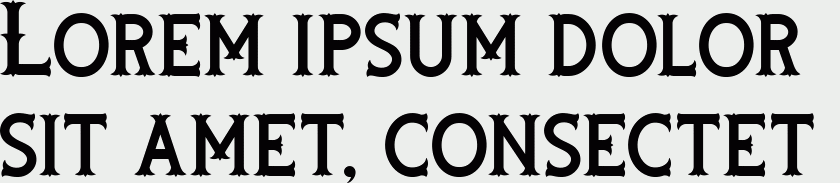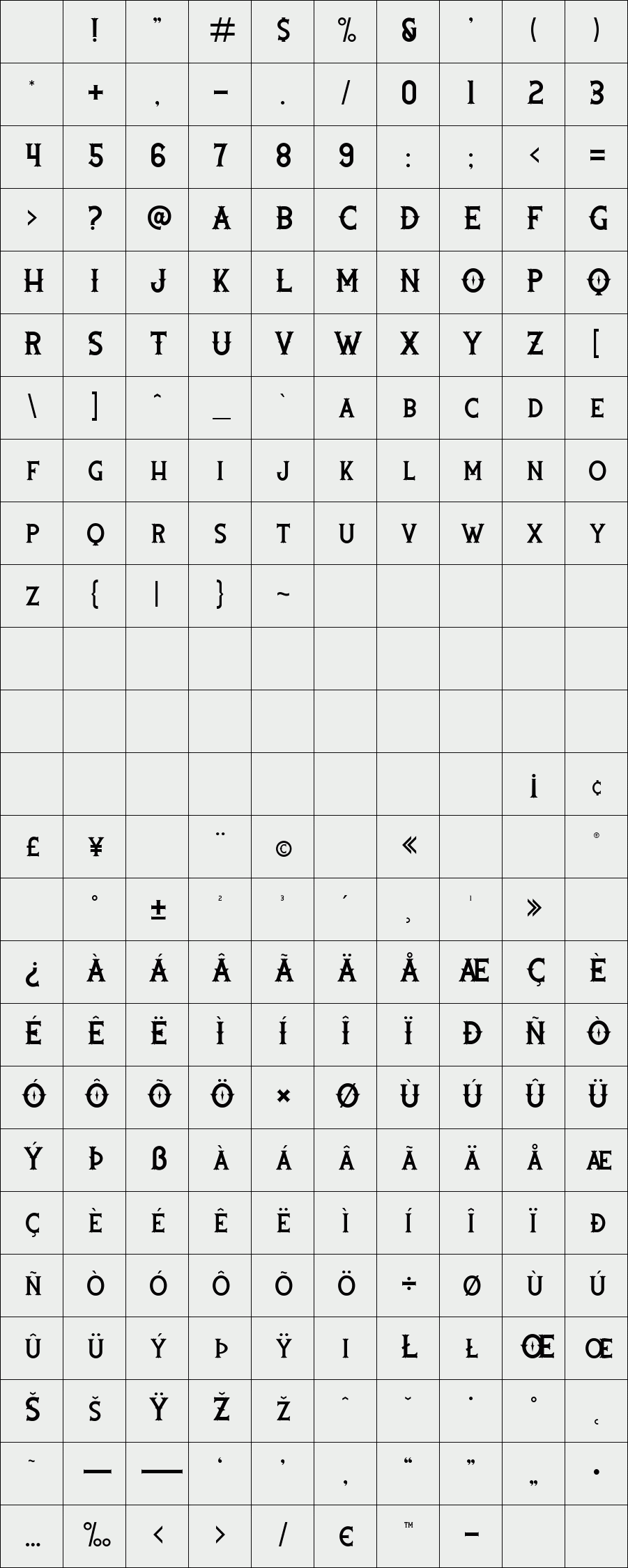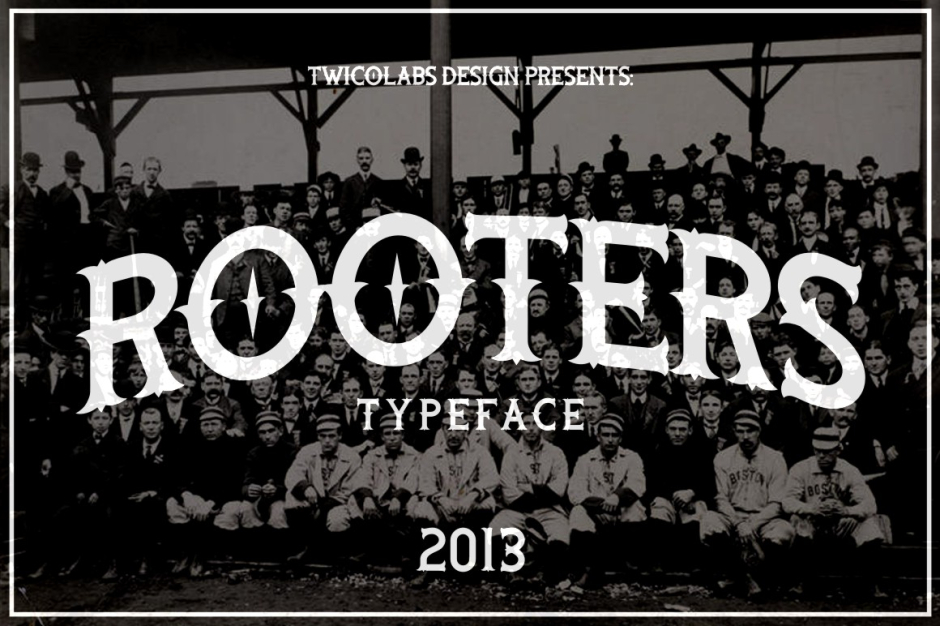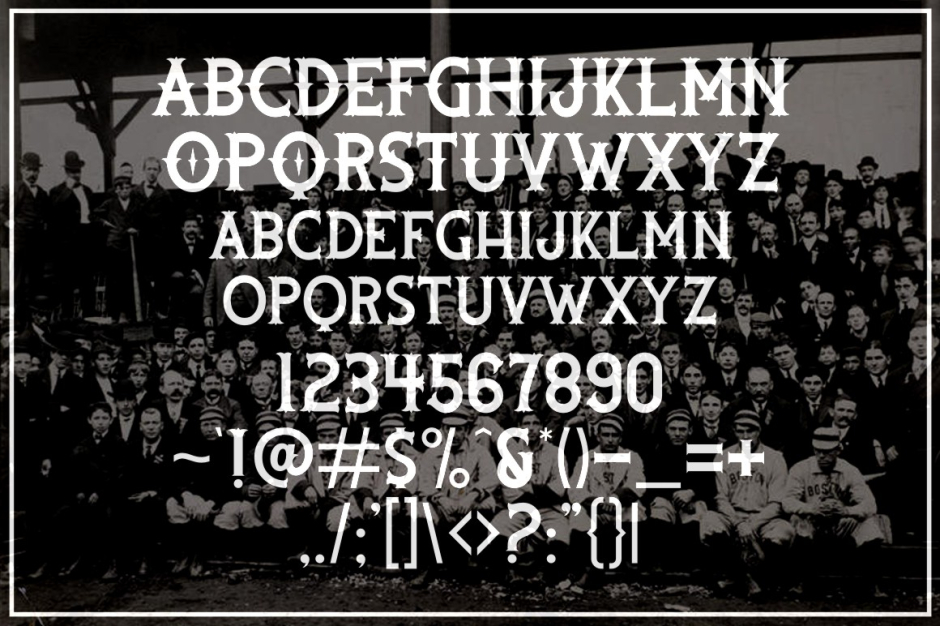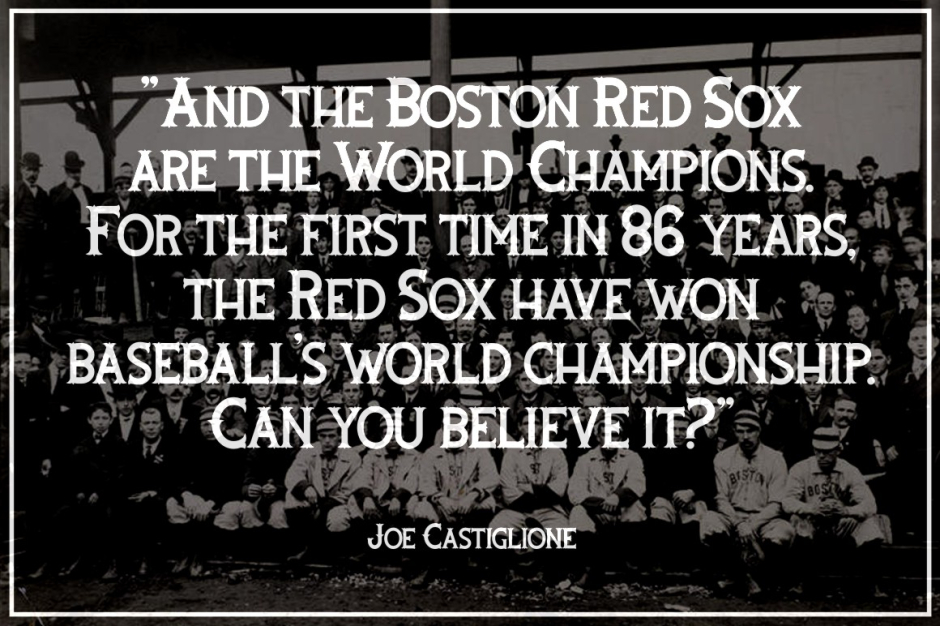
Rooters
Rooters is a mix of classic baseball style letters and a bit of tattoo lettering influence.
Great addition for your vintage style font collections.
Available in uppercase, lowercase, numerals and punctuations.